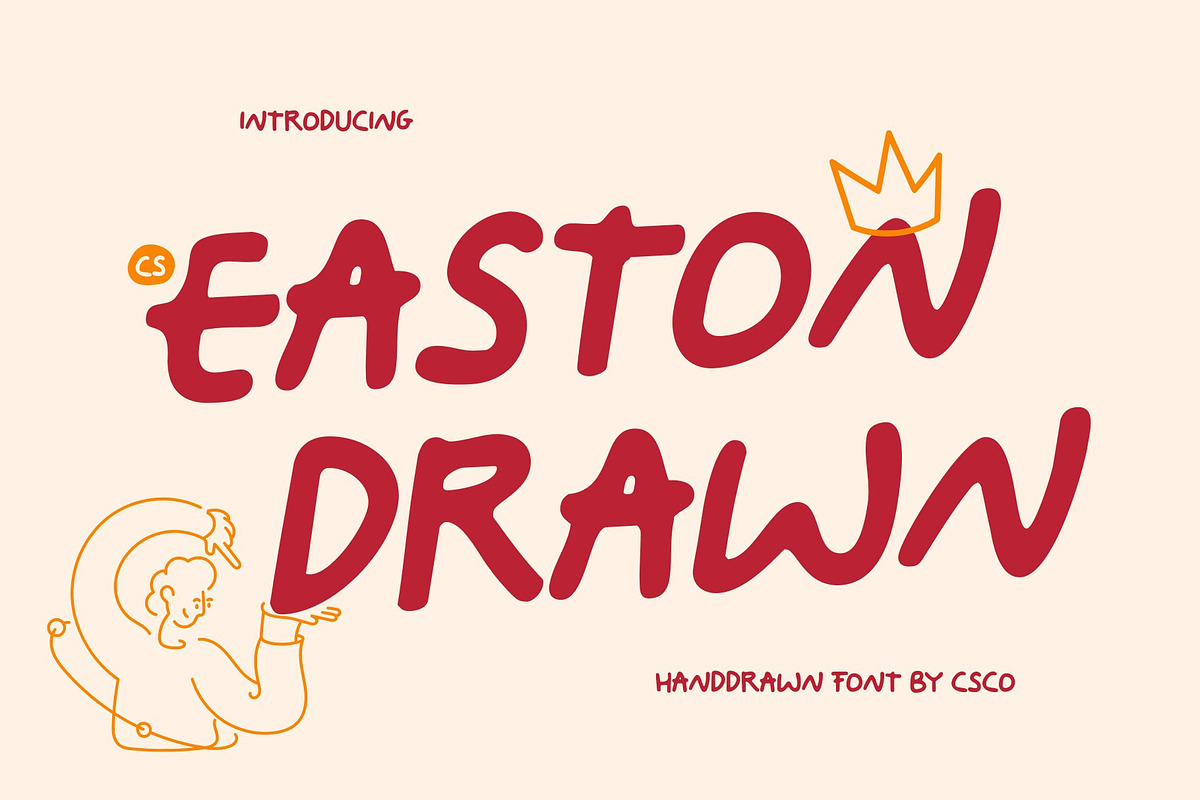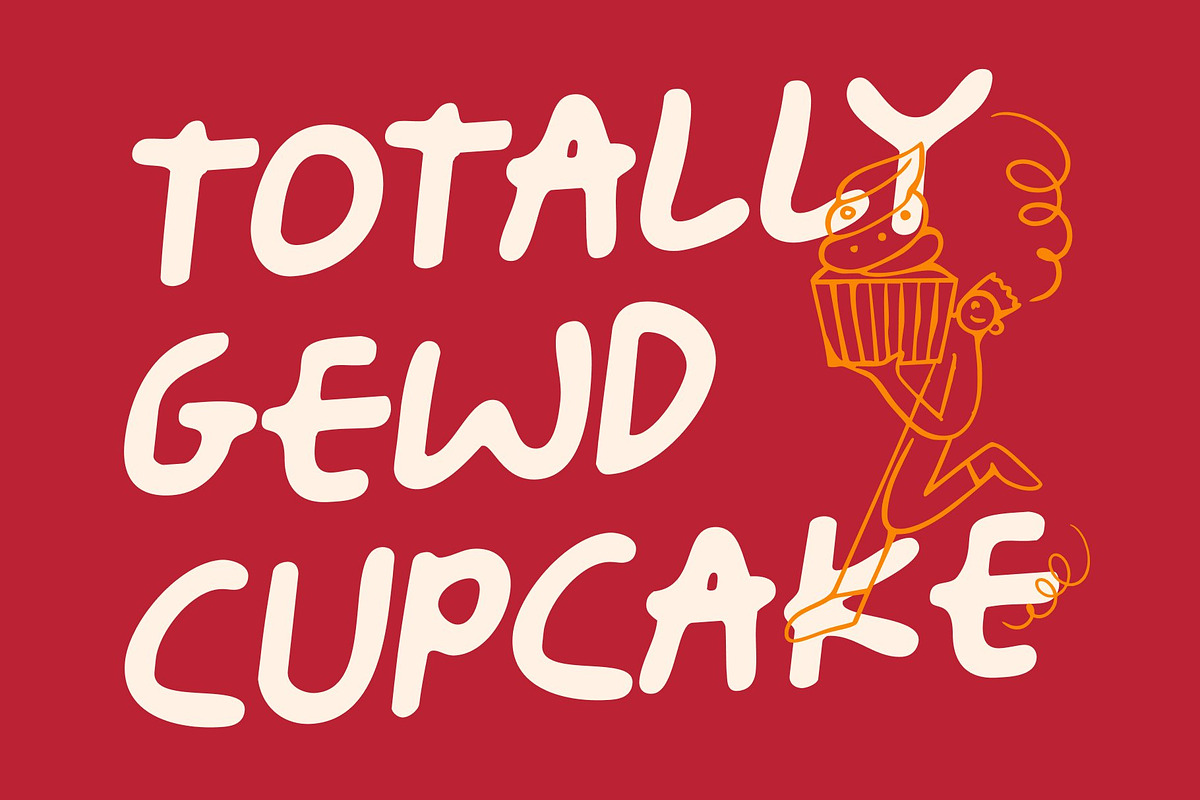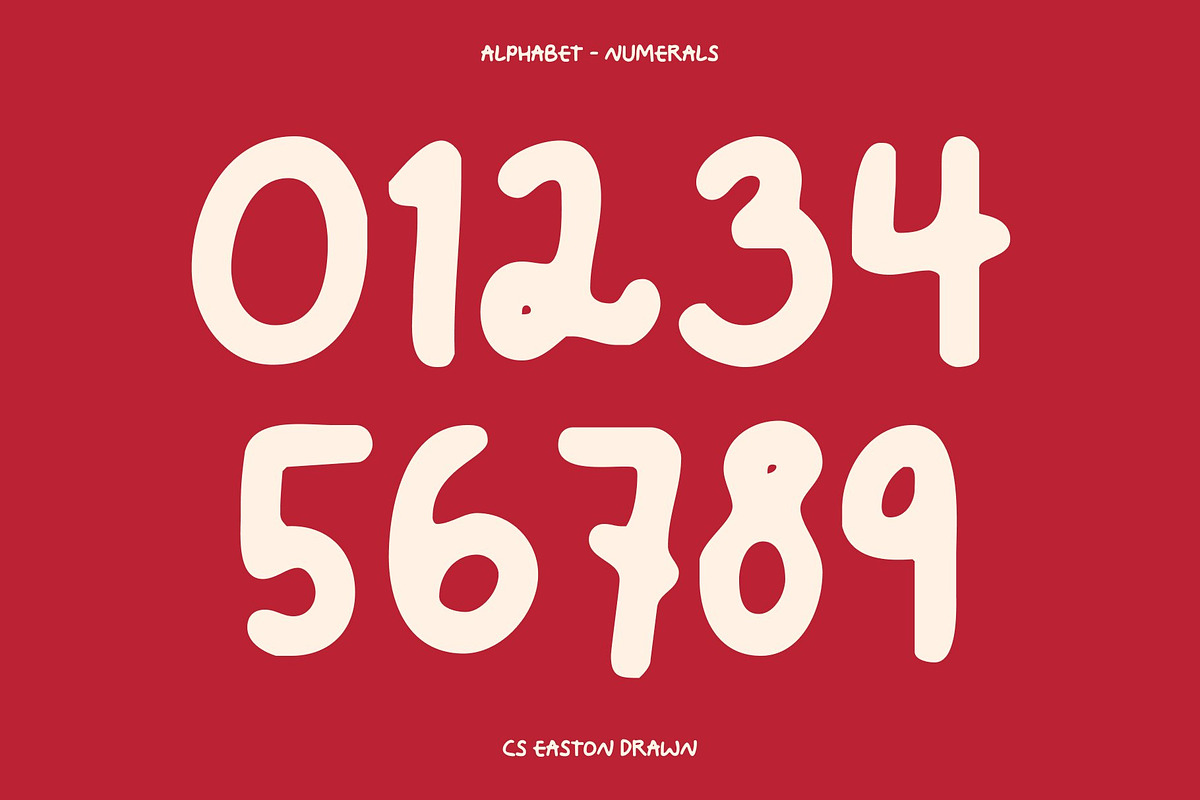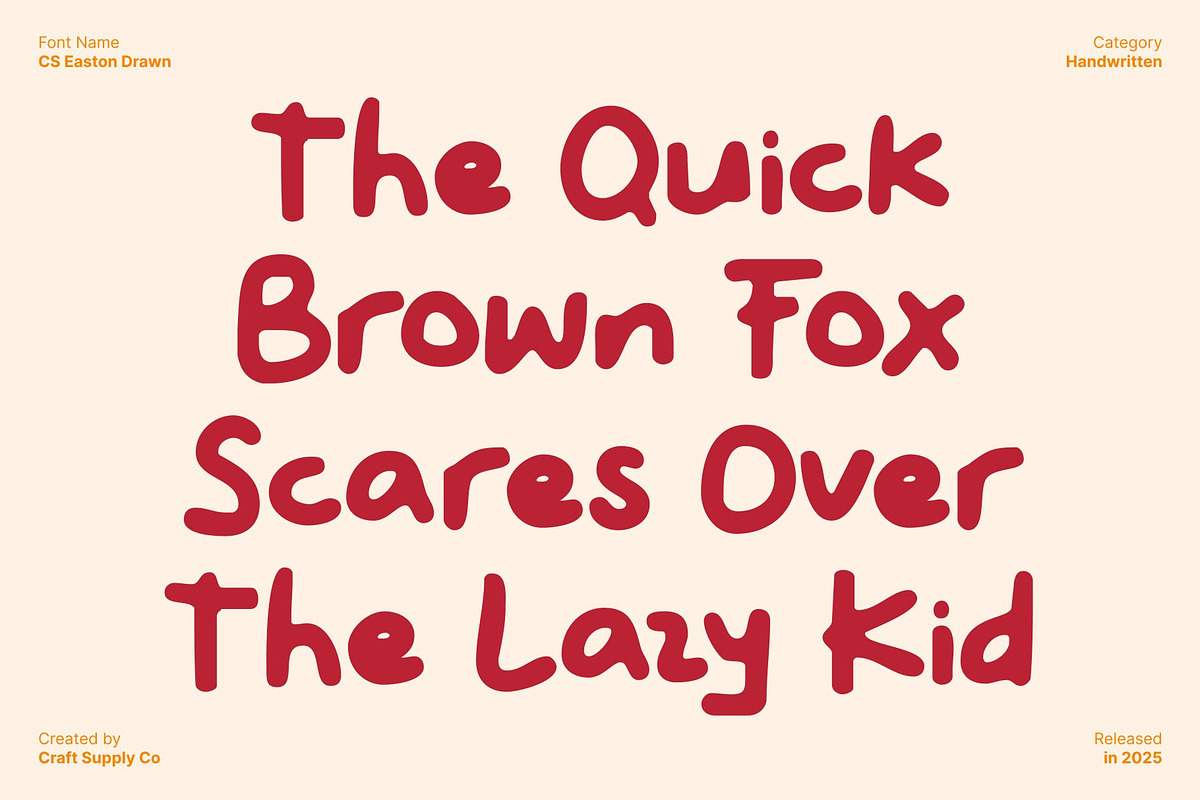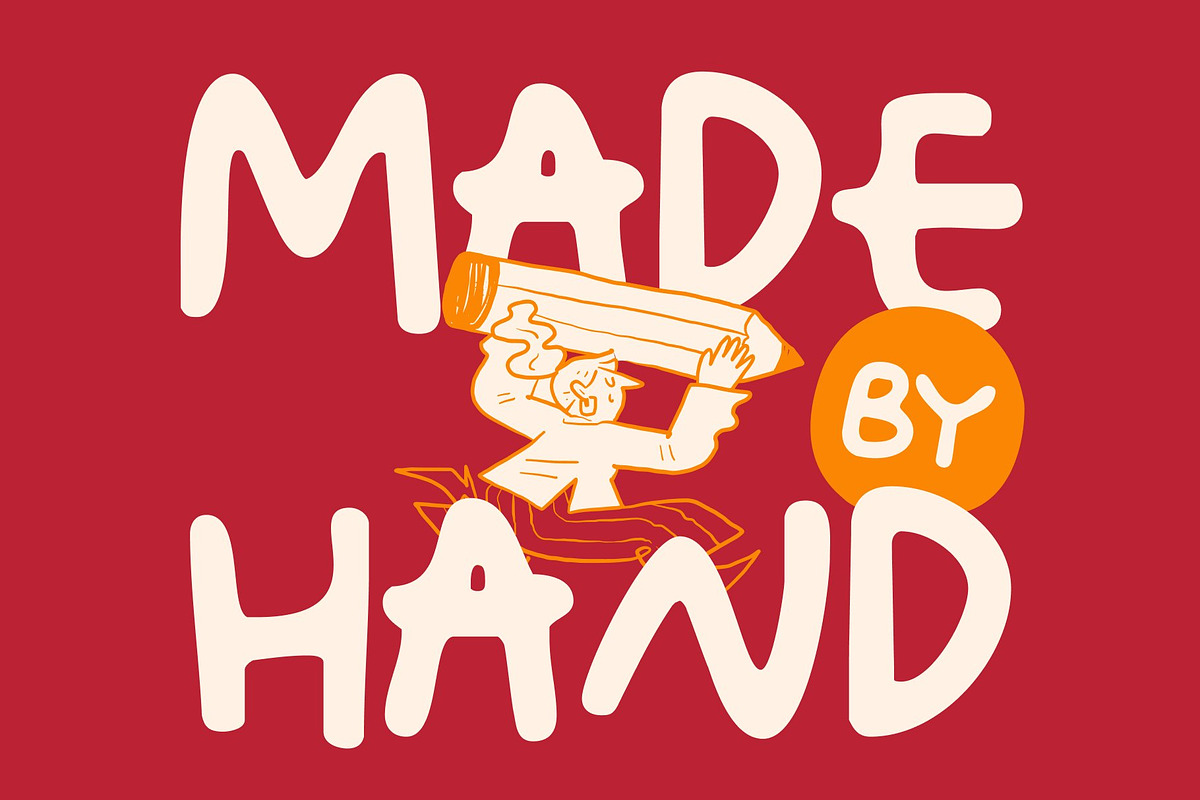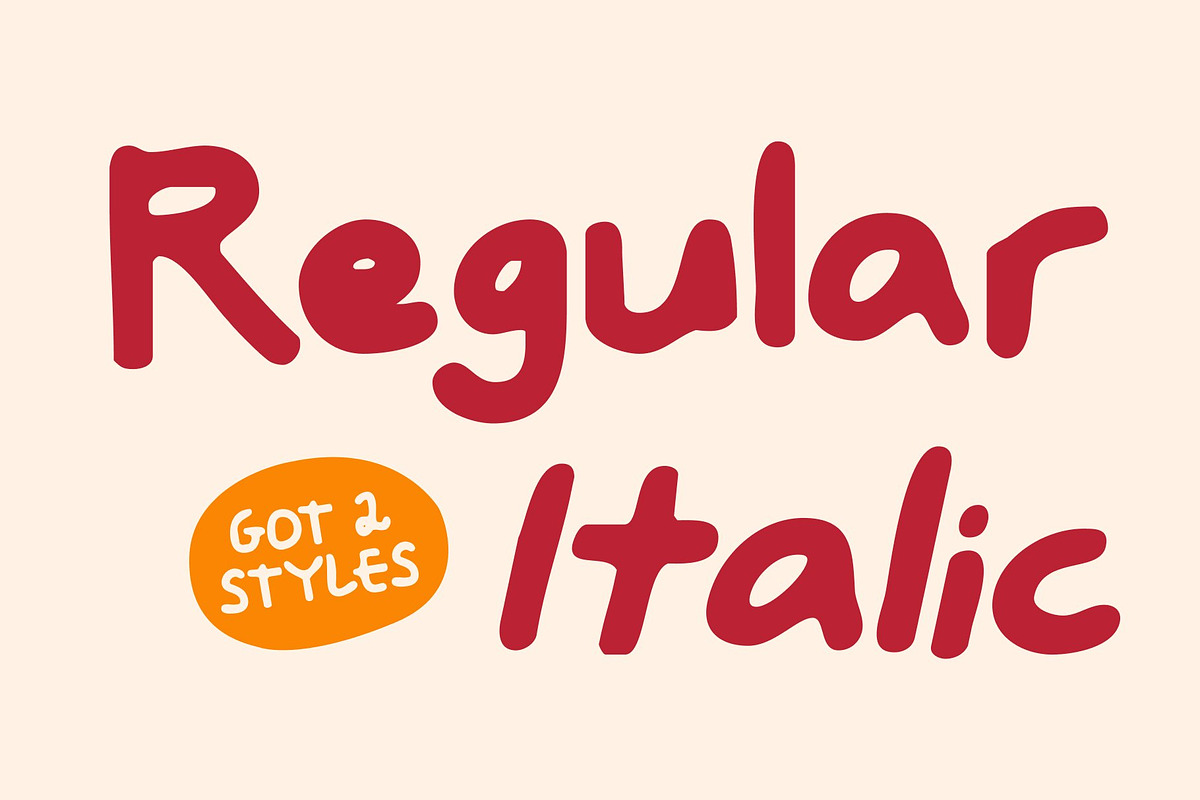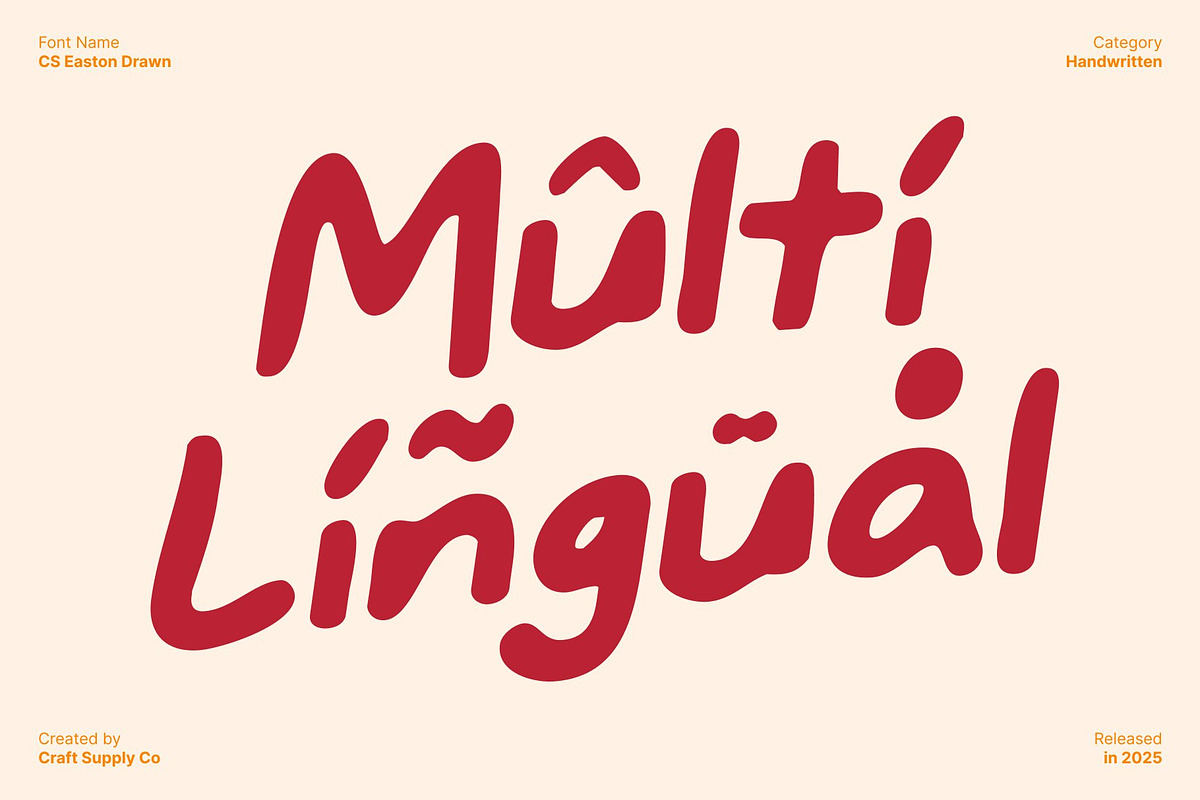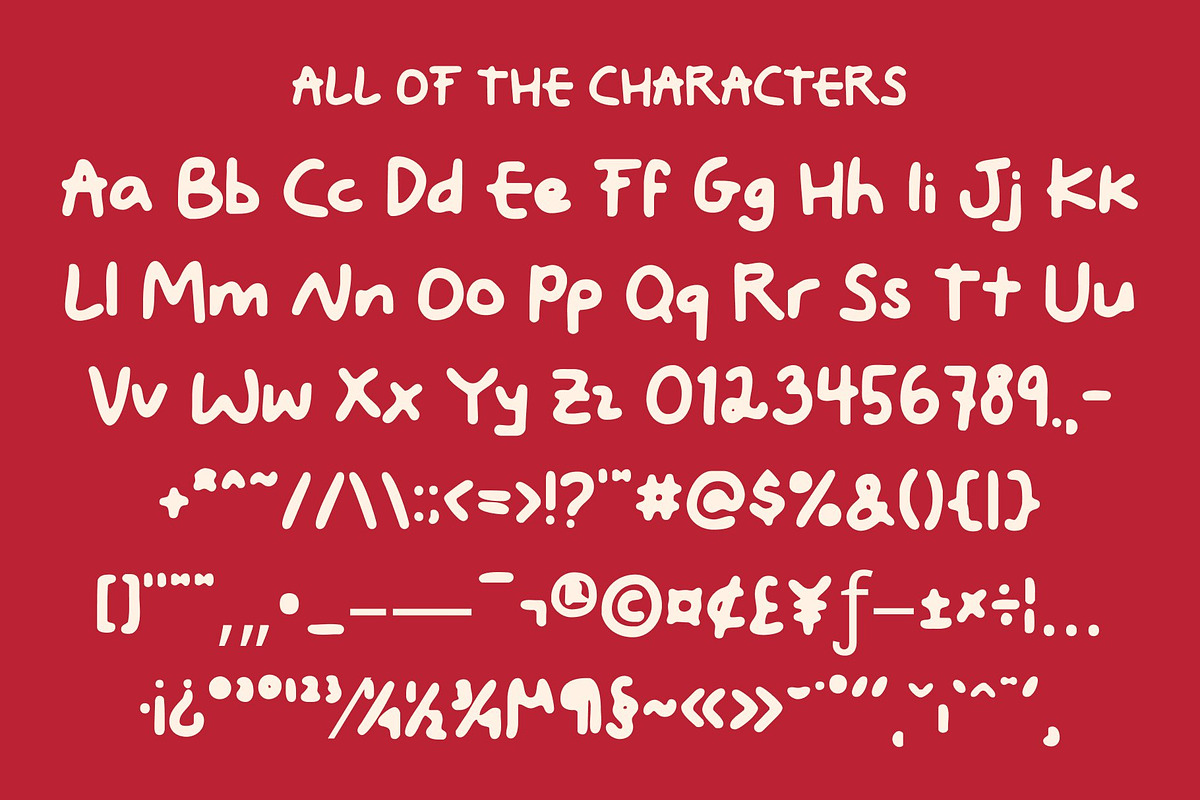
CS Easton Drawn
CS Easton Drawn – Handwritten Playfulness with Modern Charm
Playful Sans Serif with Handcrafted Personality This is a lively handwritten sans serif font that combines the clean structure of a sans serif with the warmth and spontaneity of natural hand lettering. Its textured strokes and organic flow give each character a personal, expressive touch, perfect for designs that want to feel cheerful, approachable, and full of life.
Natural Flow for Authentic Expression Every letter carries the charm of handcrafted handwriting, creating a smooth, flowing rhythm that feels dynamic and organic. This playful, yet modern design adds personality to headlines, posters, social media visuals, and packaging, helping your text connect with audiences on a human level.
Modern Elegance Meets Whimsical Energy Balancing contemporary form with lively expression, this font turns ordinary typography into engaging, eye-catching design. Its clear readability ensures functionality while the subtle irregularities of its drawn style make every word unique and memorable.
Perfect for Branding, Titles, and Creative Projects From youth-focused branding and event posters to quirky packaging and playful editorial layouts, this font infuses your work with joyful energy. Its versatility and handcrafted charm make it ideal for any project that wants to convey warmth, fun, and originality.
- CS Easton Drawn Regular
- CS Easton Drawn Italic